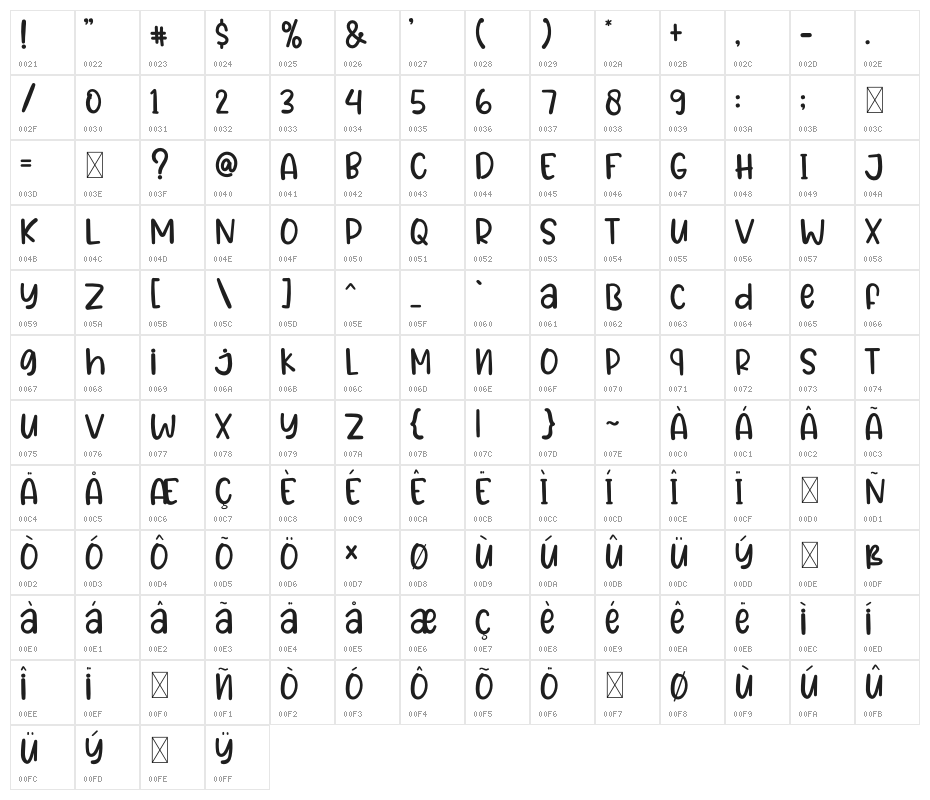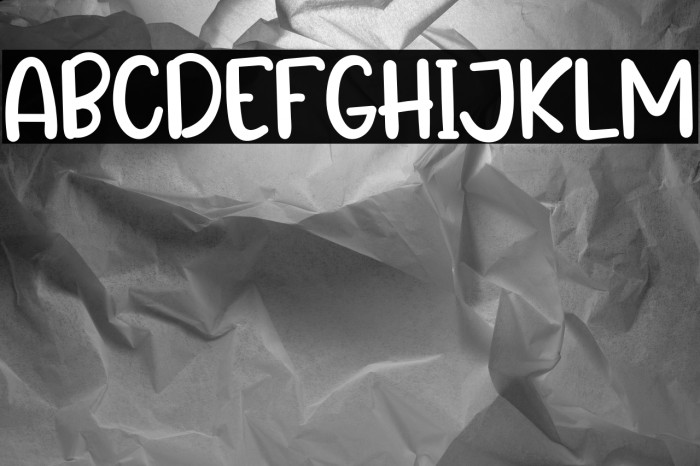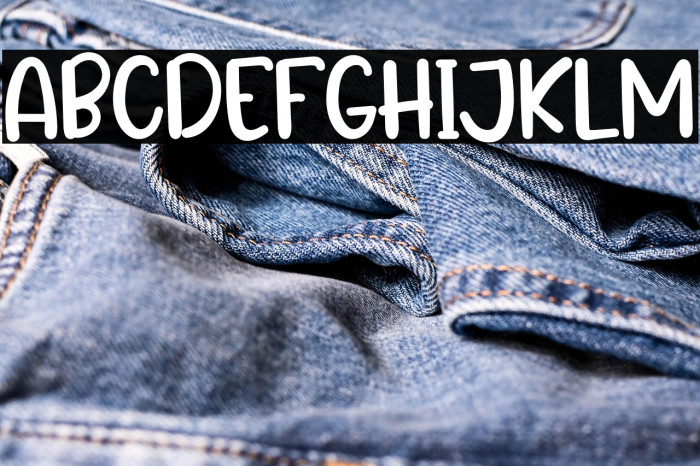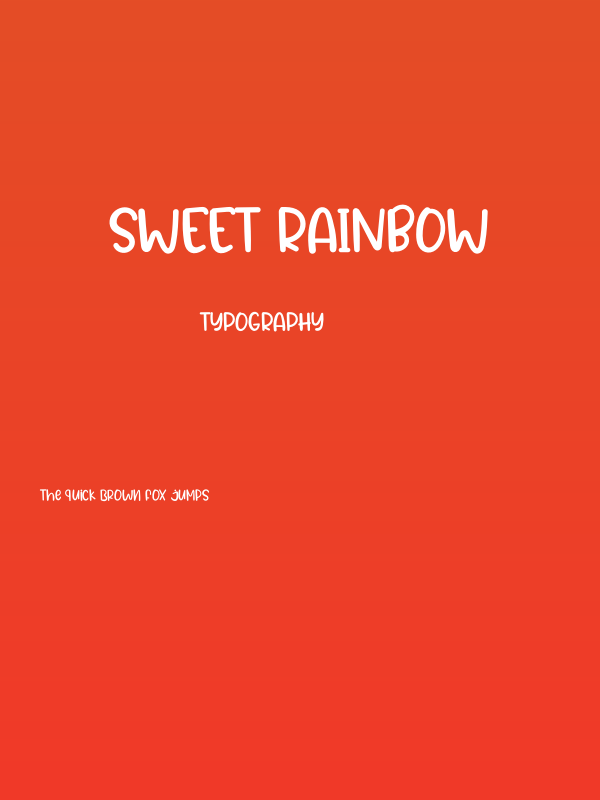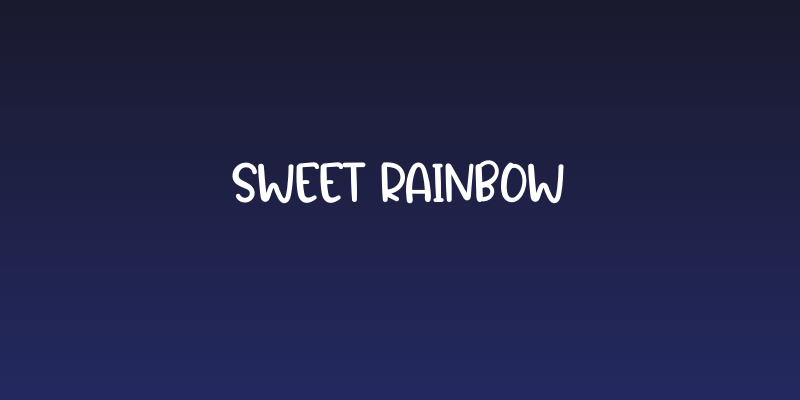
Sweet RAINBOW Font
Sweet RAINBOW Description
This font features a playful and whimsical style with rounded edges and a hand-drawn appearance. The characters are bold and slightly irregular, giving it a friendly and approachable feel. The uppercase and lowercase letters maintain a consistent style, with a slight slant that adds to its casual charm. The numbers and special characters are equally playful, making this font suitable for creative and informal projects. Its unique style is perfect for capturing attention while maintaining readability.
| Proposed Projects | Ideal for children's books, playful branding, greeting cards, and creative posters. |